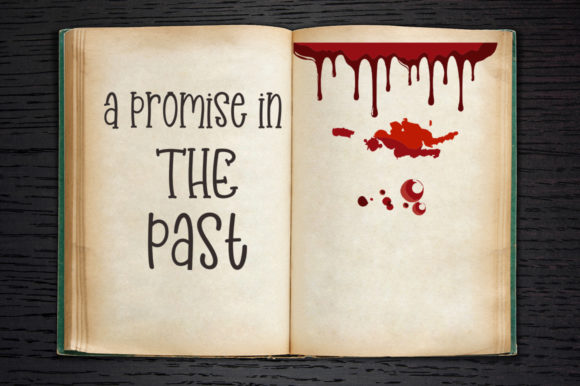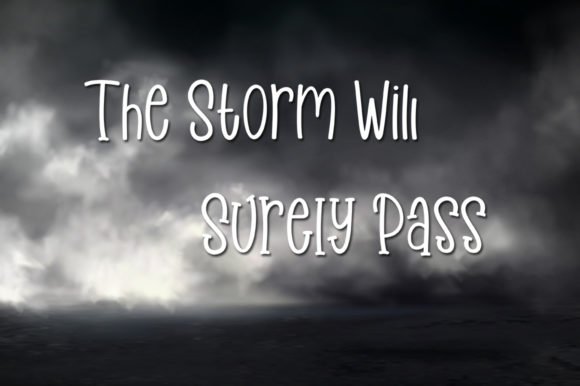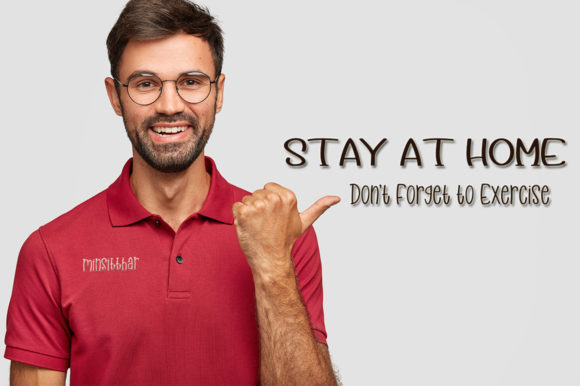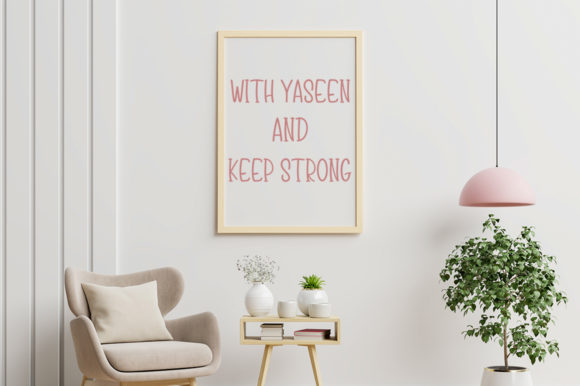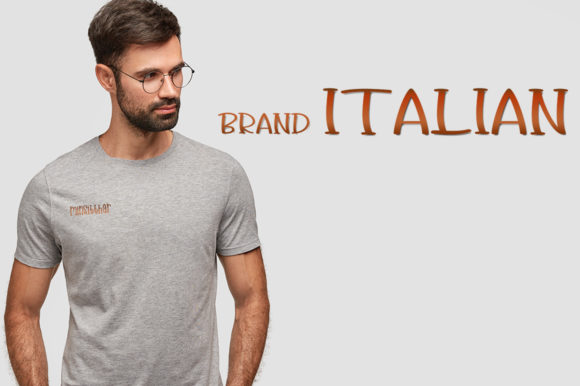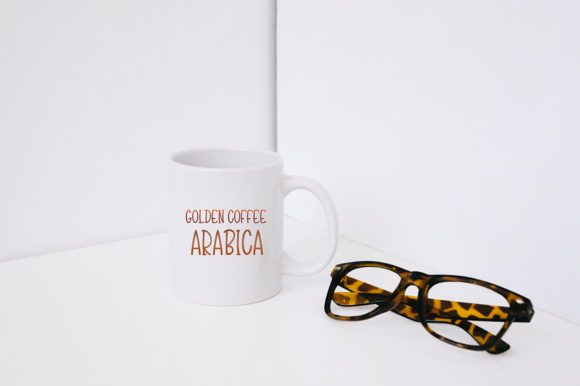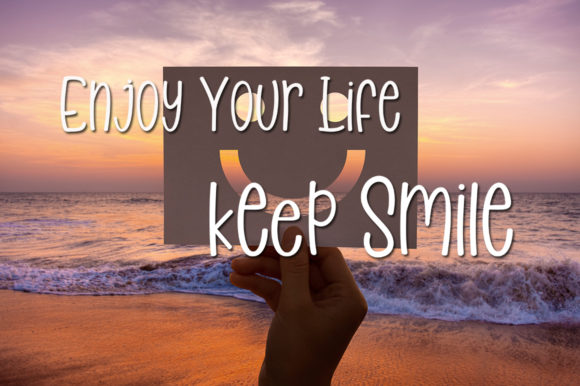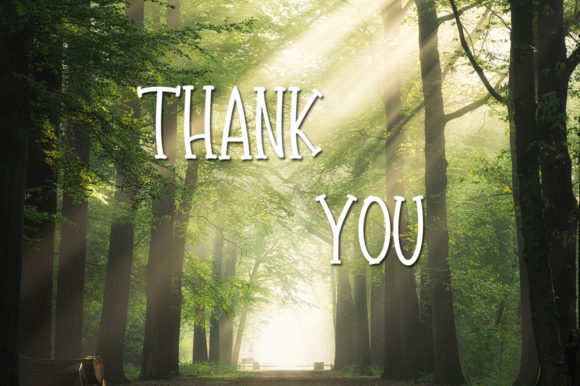
Minsitthar Font
Introducing Minsitthar: The Fun, Casual, Asymmetrical, and Unique Handwritten Font
Get ready to have some fun with Minsitthar, a font that exudes casual charm with its asymmetrical and unique handwritten style. Whether you’re working on branding, product packaging, invitations, quotes, t-shirts, labels, posters, or logos, Minsitthar is the perfect choice to develop your projects. Embrace the versatility of Minsitthar as it adds a touch of playfulness and originality to your designs.
Minsitthar’s fun and casual appeal brings a sense of ease and creativity to your projects. Its asymmetrical and unique letterforms add a touch of quirkiness, making your text stand out with personality and character.
As a handwritten font, Minsitthar carries a sense of authenticity and individuality. Each letter embodies the artistry of handcrafted beauty, making your designs feel truly special and engaging.
The font’s versatility shines through as it seamlessly adapts to various design purposes. From product packaging to quotes, t-shirts to logos, Minsitthar becomes the perfect canvas to develop your creative ideas.
Embrace the playful nature of Minsitthar as you embark on your design journey. Let it be the font that encourages you to think outside the box, infusing your projects with a touch of whimsy and originality.
As you explore the possibilities of Minsitthar, you’ll find it to be a font that enhances your development process with ease. Its fun, casual, asymmetrical, and unique handwritten beauty elevates your work, ensuring that your designs leave a lasting impression.
So, let Minsitthar be the font that sparks creativity in your designs. Embrace its asymmetrical and unique style, and watch as your projects come to life with a sense of playfulness and charm. With Minsitthar as your go-to font, your designs will resonate with individuality and fun, captivating your audience and leaving a lasting impression. Embrace the quirkiness of Minsitthar and create designs that are truly engaging and unforgettable!